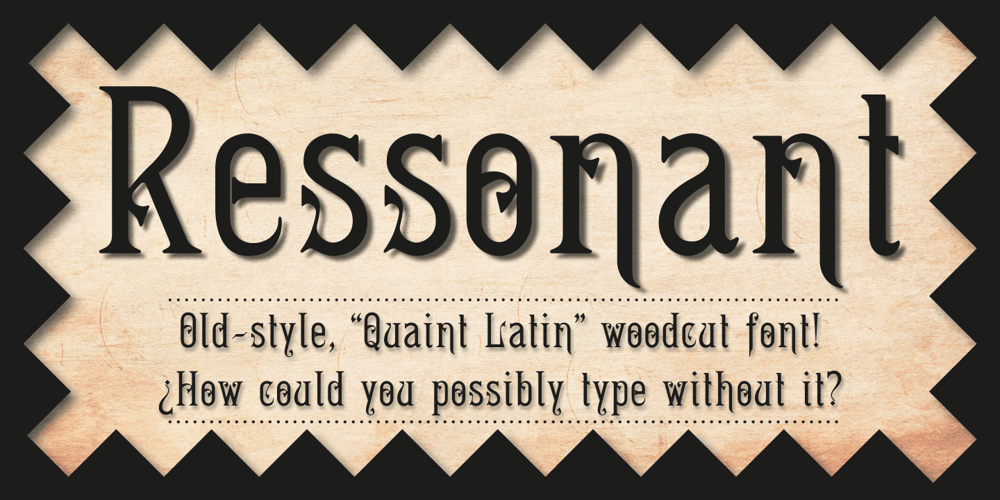
Ressonant Font Family was designed by Paul Smith and published by Octopi. Ressonant contains 4 styles and family package options. With reference to the Type Heritage Project, this font (designer unknown) was cut by Henry Brehmer of New York for the Dickinson Type Foundary of Boston in c1879 and had the original trade name of Renaissant. John F. Cumming later cut a light-face derivative called “Artistic.” A history of the un-patented face can be found at the Type Heritage Project website. Ressonant has a full character set as well as ligatures, superiors, inferiors, numerators, denominators, old style figures, and auto-fractions. There are also alternate caps for N and M as in the original, and, unlike the original, comes in four weights. This font is a documented revival of a 19th-century typeface. The year, country, designer and/or foundry of origin will be published in a series of textbooks entitled “The Type Heritage Project.” Volume I explores quintessential Victorian faces, a spectacular trove of innovative gems; you can see samples by clicking the Type Heritage Project link above.